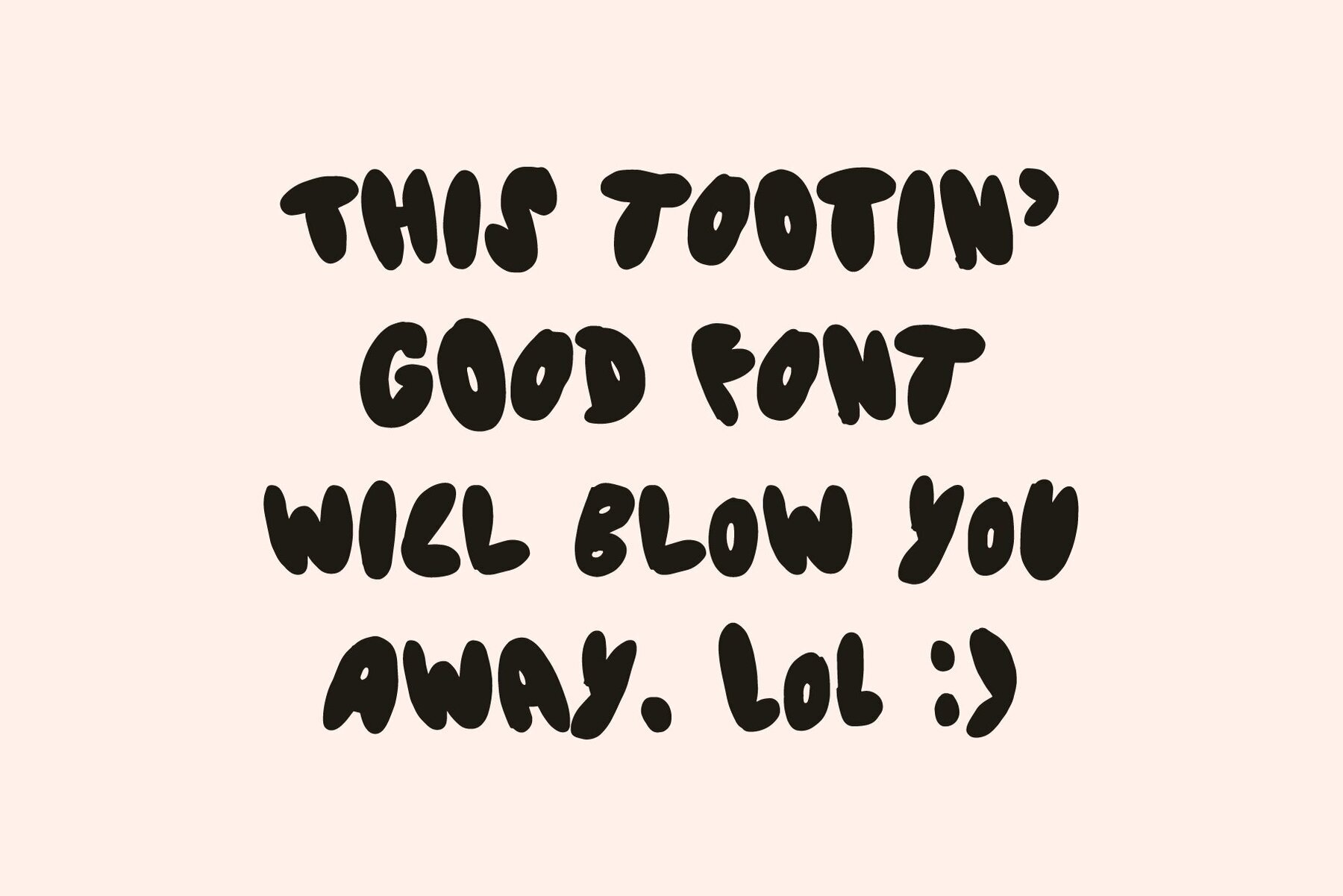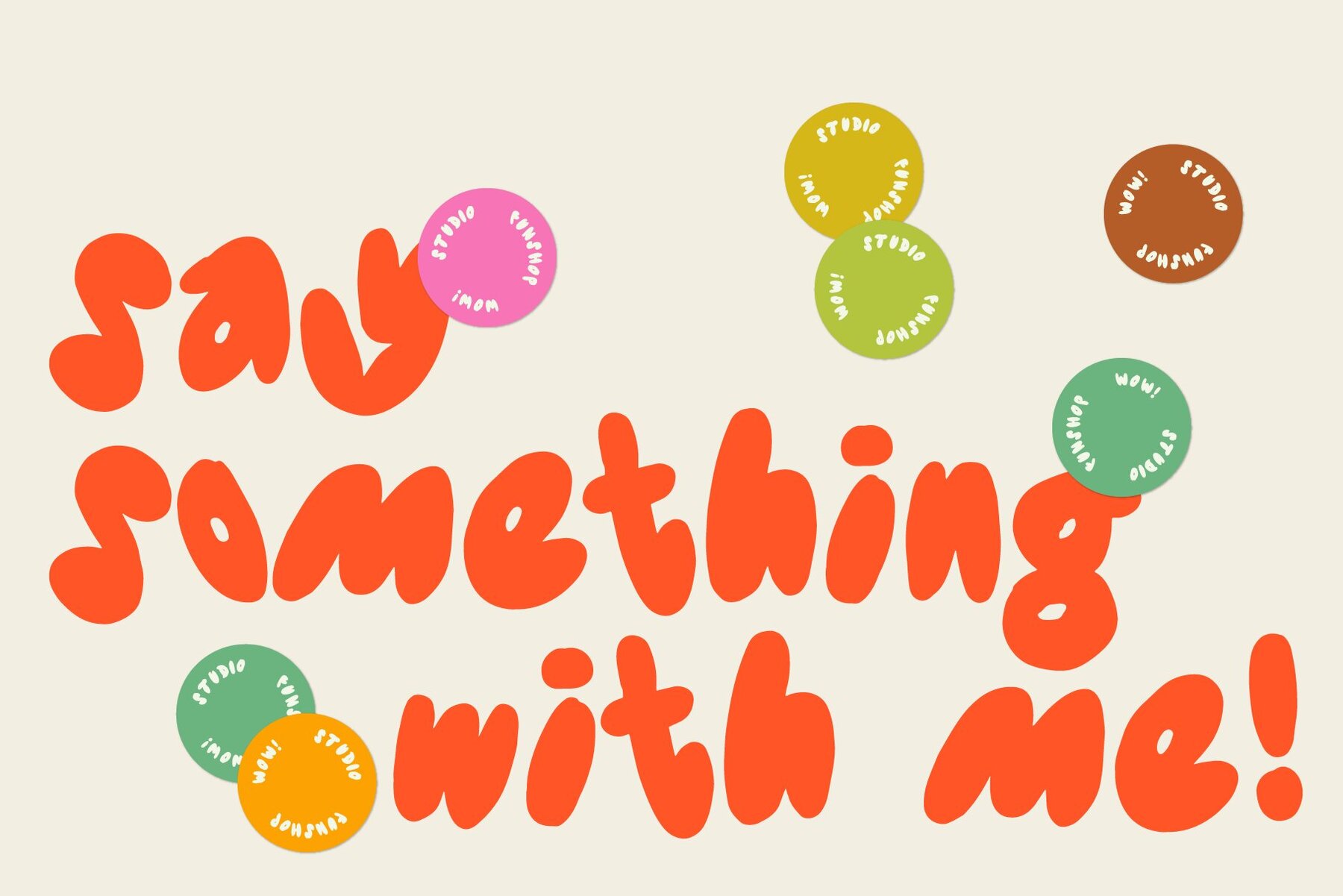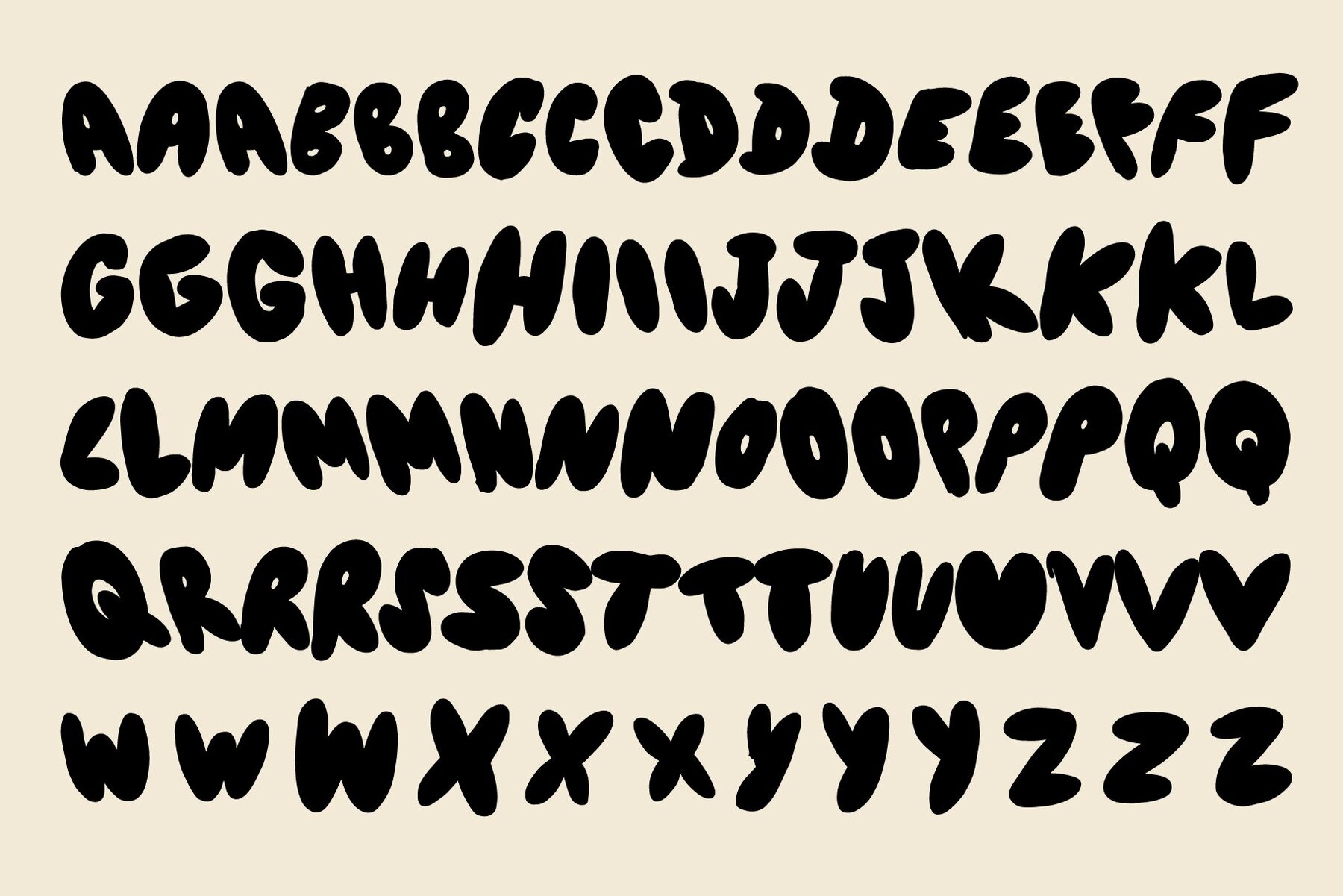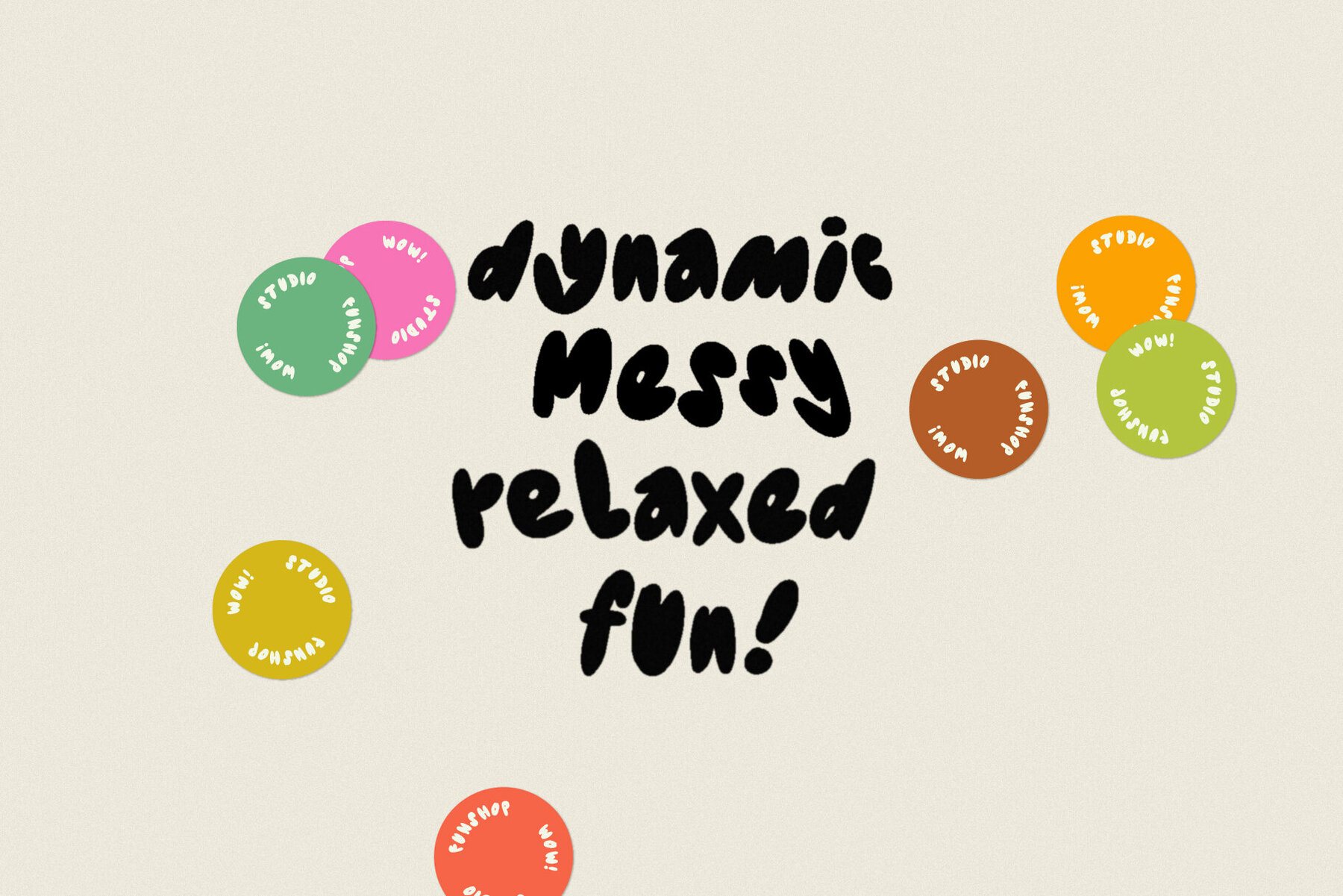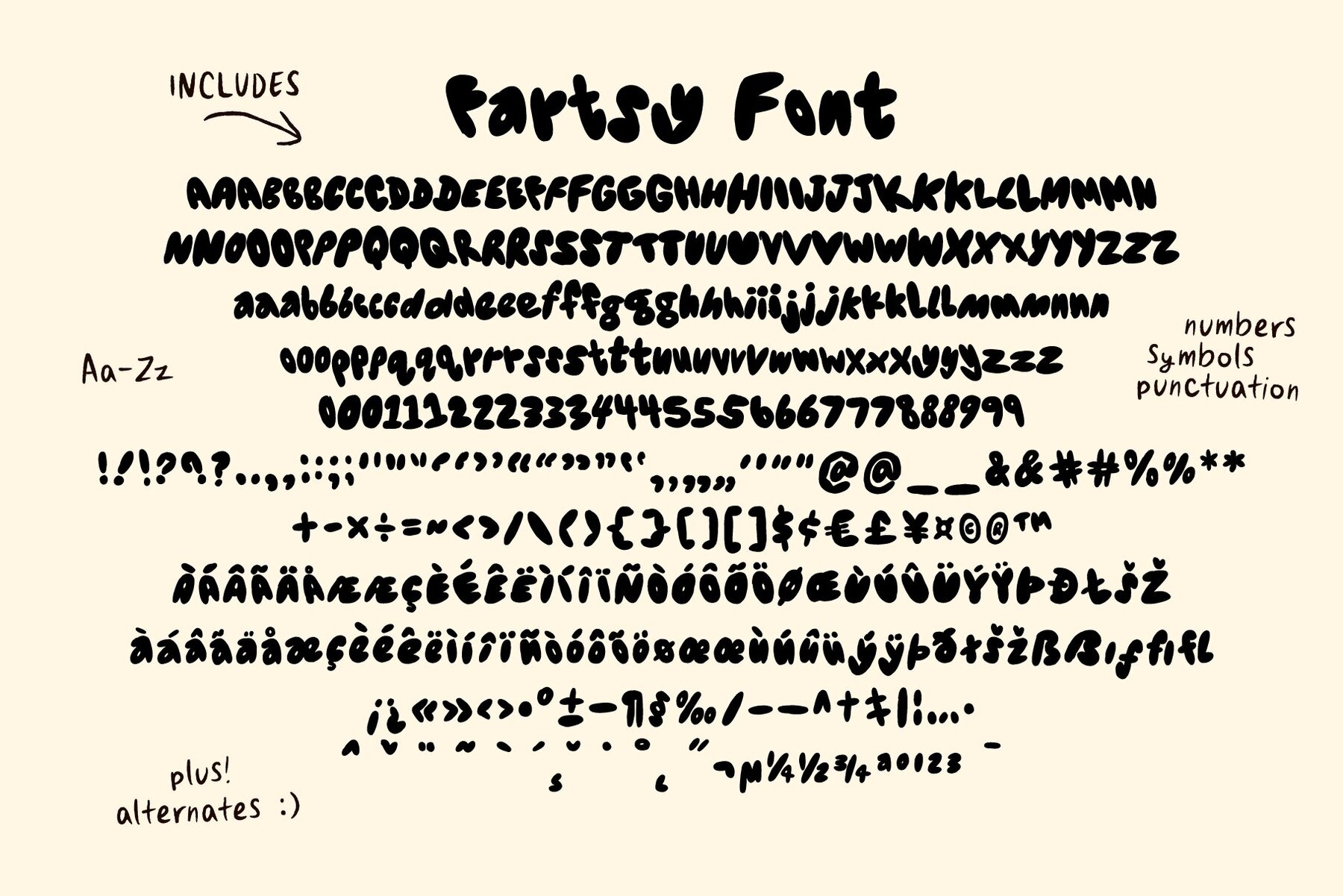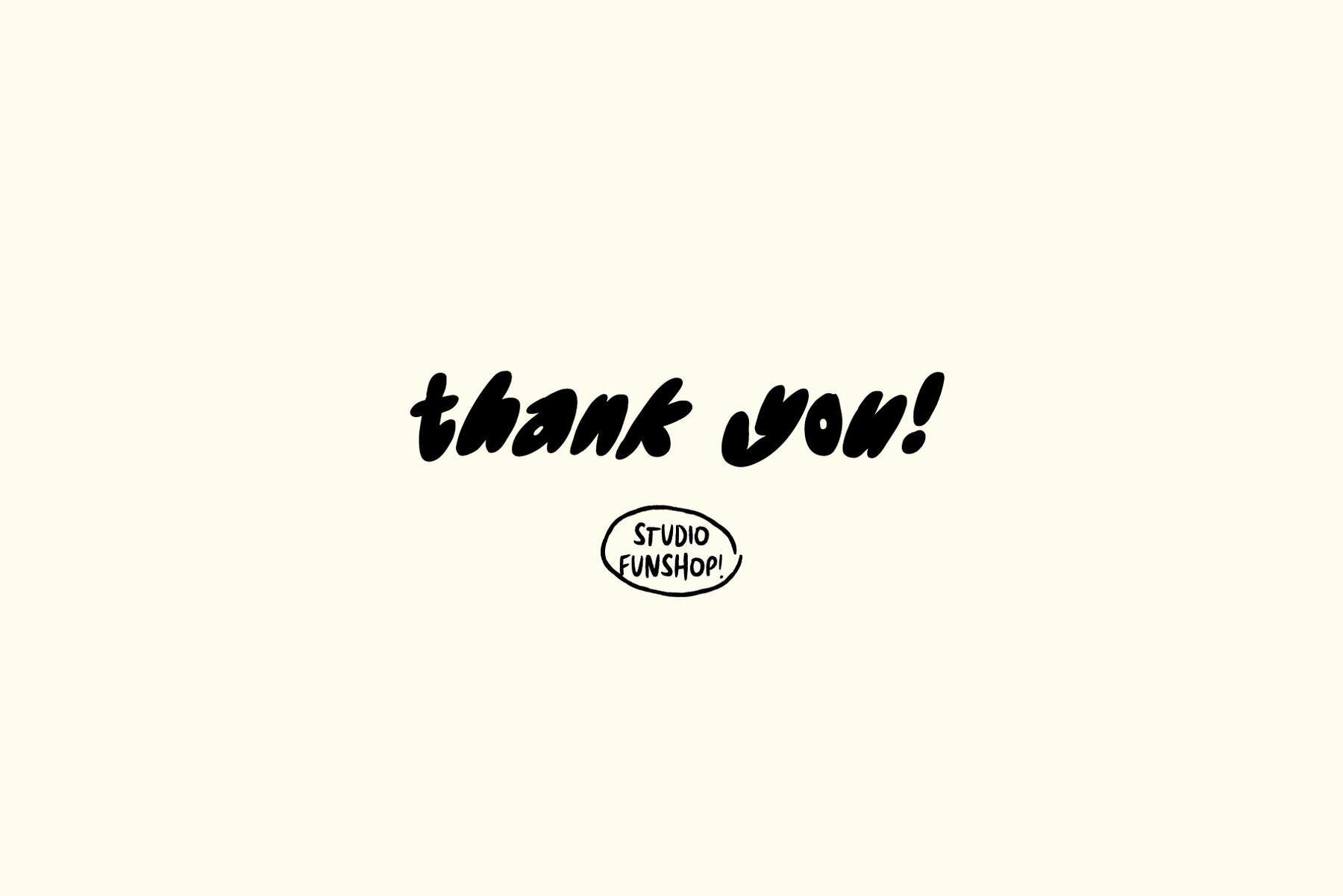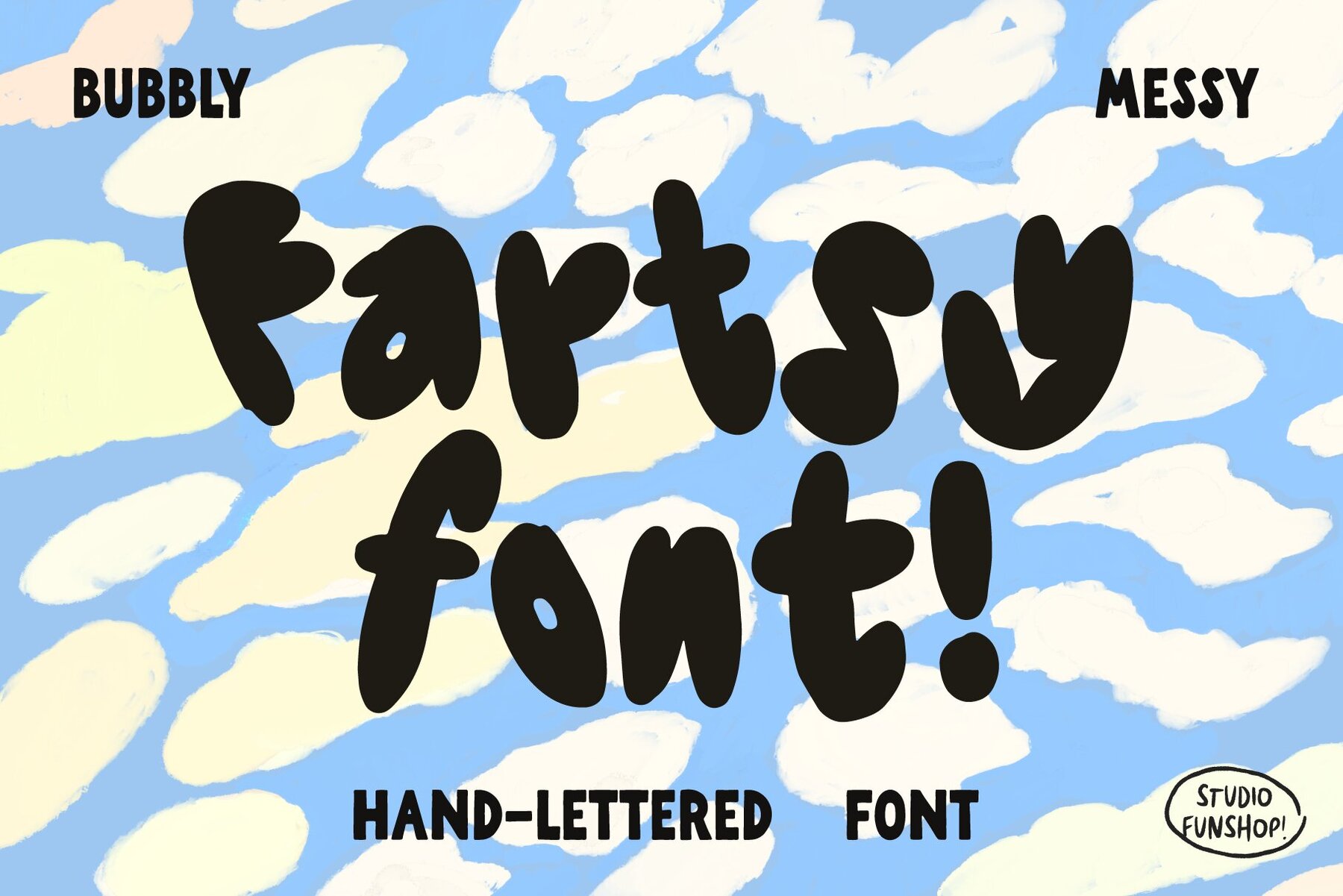
Fartsy Font
Fartsy Regular
Embrace your craft's cheeky side with Fartsy the Font! Born within the quirky confines of Studio Funshop, Fartsy is a hand-drawn font ready to catapult creativity into your graphic design and marketing efforts. With its dynamic, lighthearted, and delightfully disordered nature, Fartsy ignites playful moodiness, transforming dull designs into uniquely engaging masterpieces. Encounter the true freedom of expertly disheveled typography that invokes an undeniable sense of fun.Revolutionize Your Designs with 'Fartsy the Font'